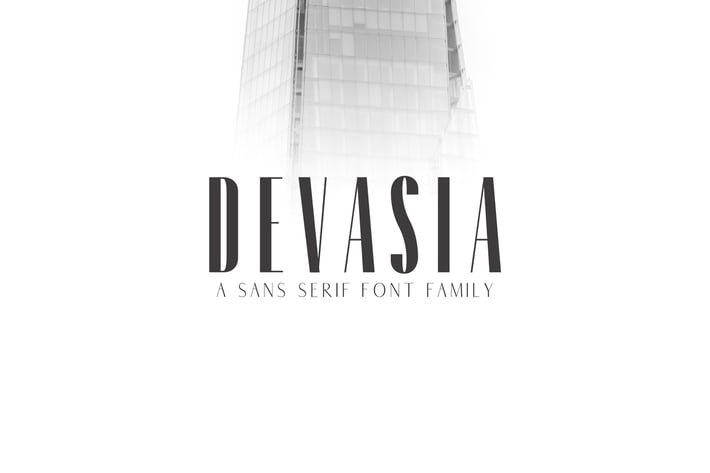
Devasia Sans Serif Font Family Pack
Devasia Sans Serif Font Family Pack is a strong and charming rounded sans serif font. It comes with 5 weights. It will be perfect for logos, texts, presentations, posters, fashion, magazines, logos, branding, photography, invitations, advertisements, quotes, and other any business related. It looks gorgeous in all caps with a wide-set spacing if you want to try a classy look, or beautiful on its own in capital and lowercase letters for something completely timeless.
Included Features:
Font Weight: Regular, Thin, Light, Round and Bold
Devasia Font Features:
Uppercase Letters
Lowercase Letters
Numbers & Punctuation
Non English Characters ( Latin Supplement + Latin Extended A )